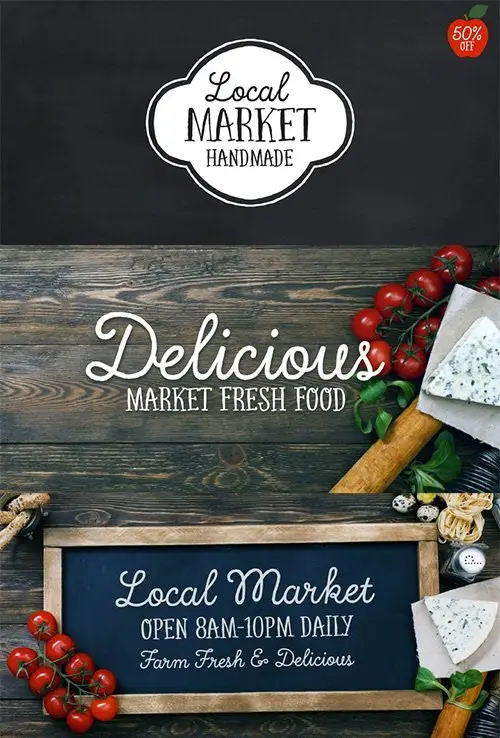
Local Market is wonderful handmade font and art collection. Local Market comes in three font styles, multiple weights, extras, labels and banners. The handwritten font styles include Local Market Basic, Display and Script. Extras come with hand-drawn market animals, market food, catchwords, numbers, symbols, kitchen tools, farm icons, leaves and ornate.Local Market works perfectly for restaurants, catering, markets, cafes and marketing.